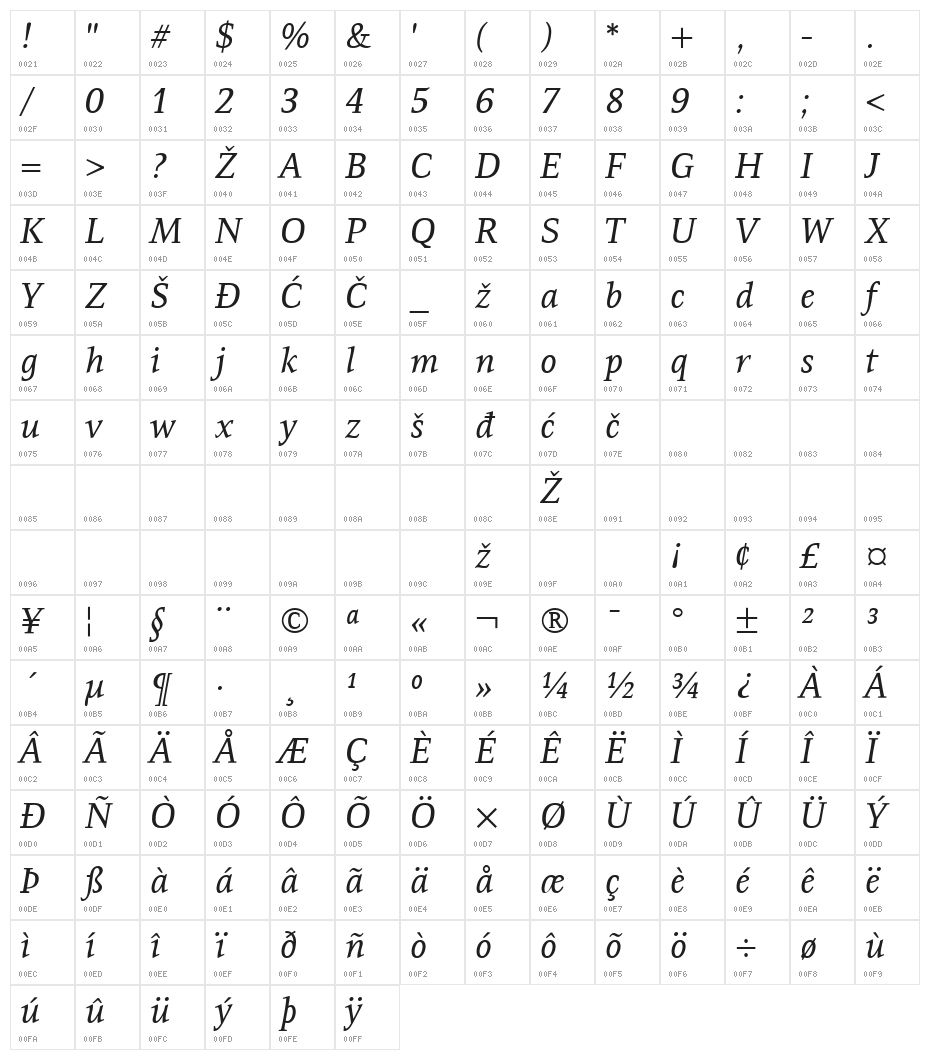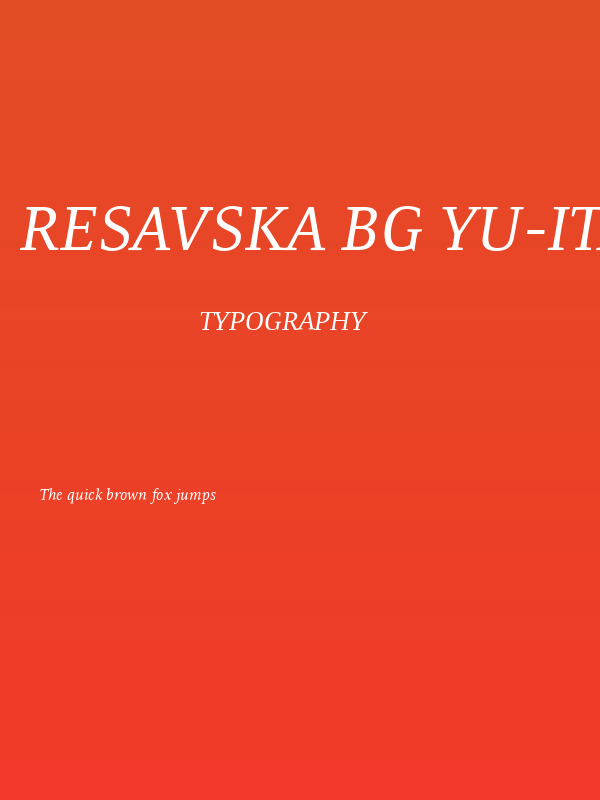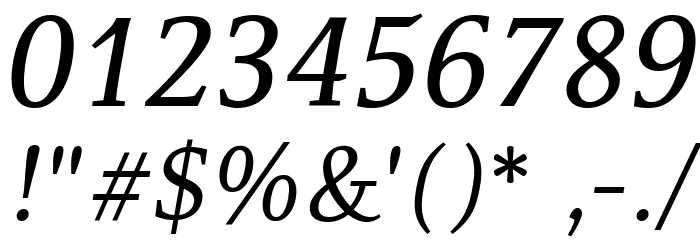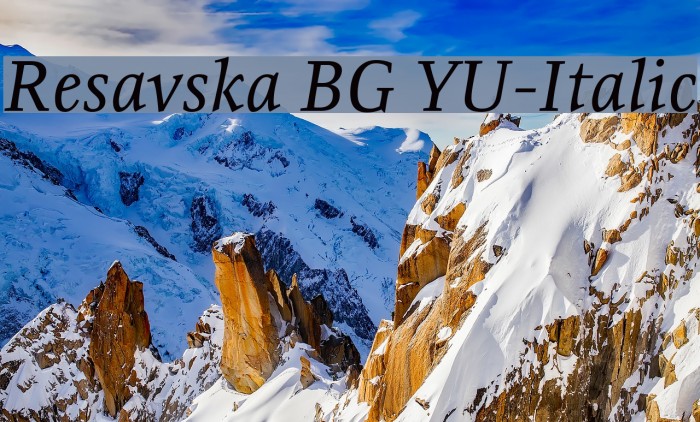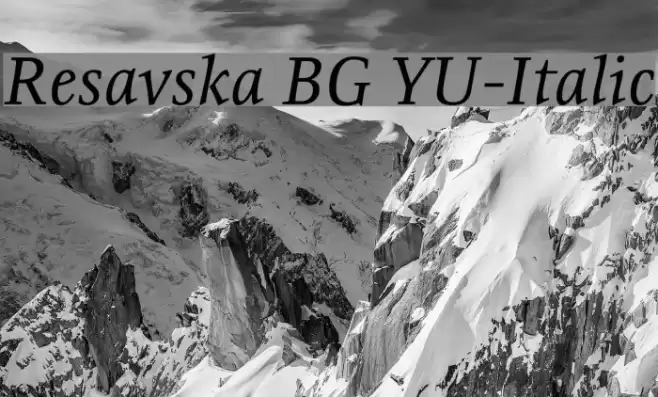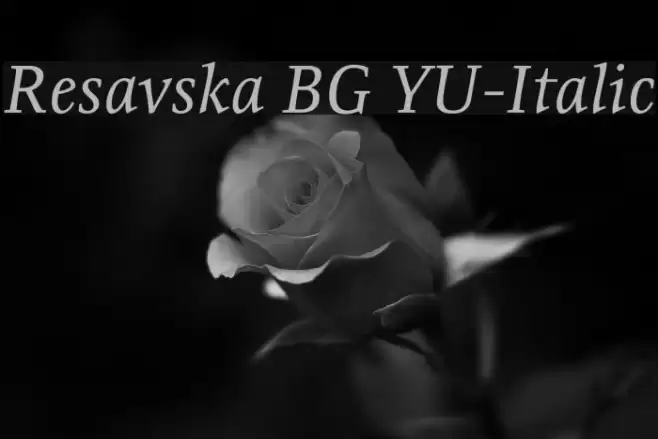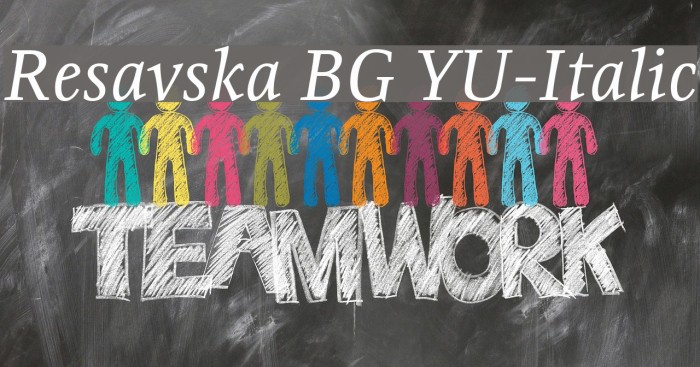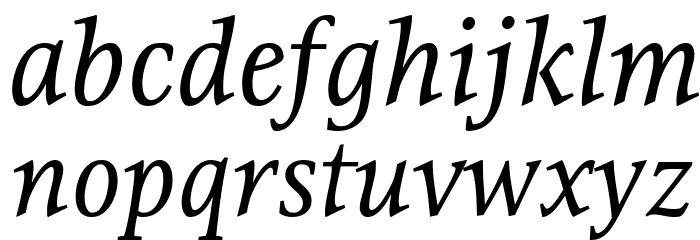
Resavska BG YU-Italic Font
Resavska BG YU-Italic Description
This font features a classic serif style with a distinct italic slant, giving it an elegant and sophisticated appearance. The characters are well-defined with moderate contrast between thick and thin strokes, enhancing readability while maintaining a stylish look. The uppercase letters are tall and commanding, while the lowercase letters have a graceful flow. Numbers are clear and consistent, matching the overall aesthetic. Special characters are designed to complement the alphabet, ensuring versatility across different uses. The font's design is suitable for conveying a sense of tradition and formality.